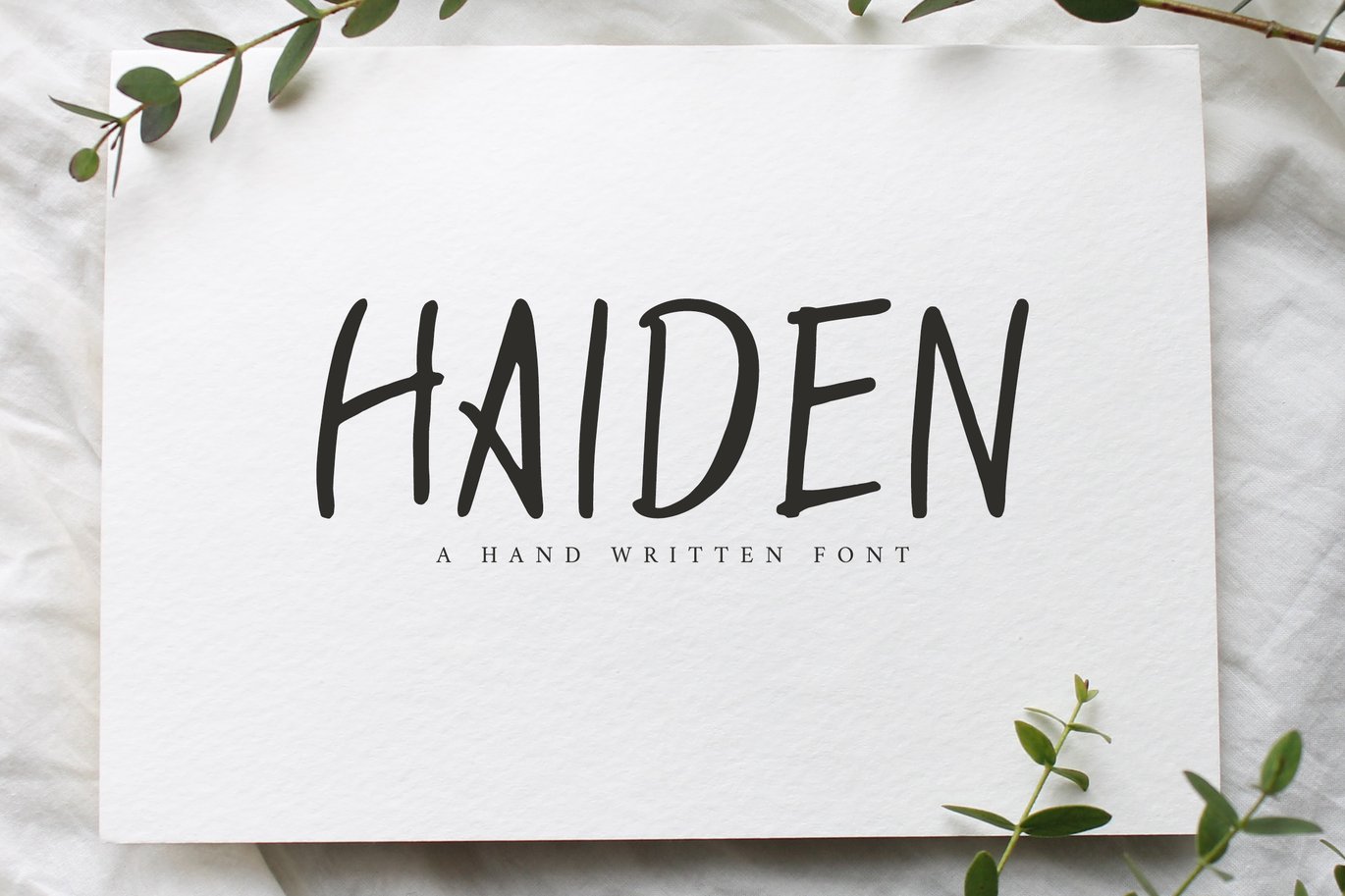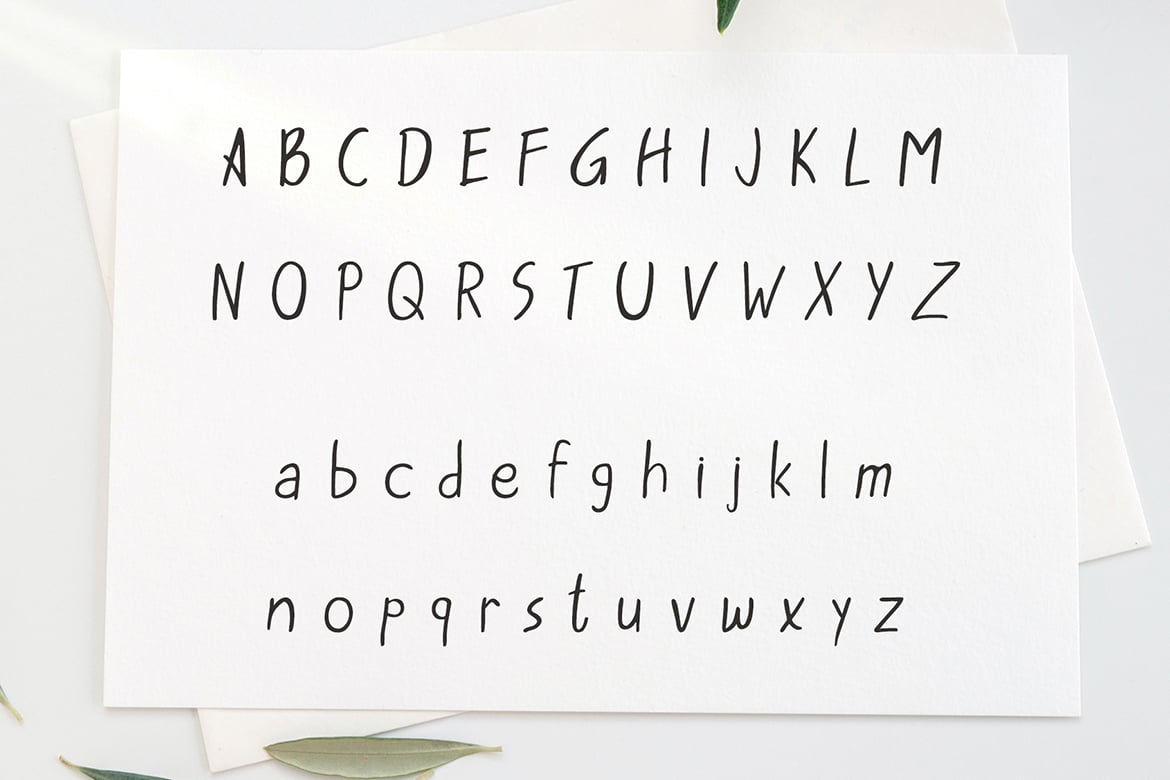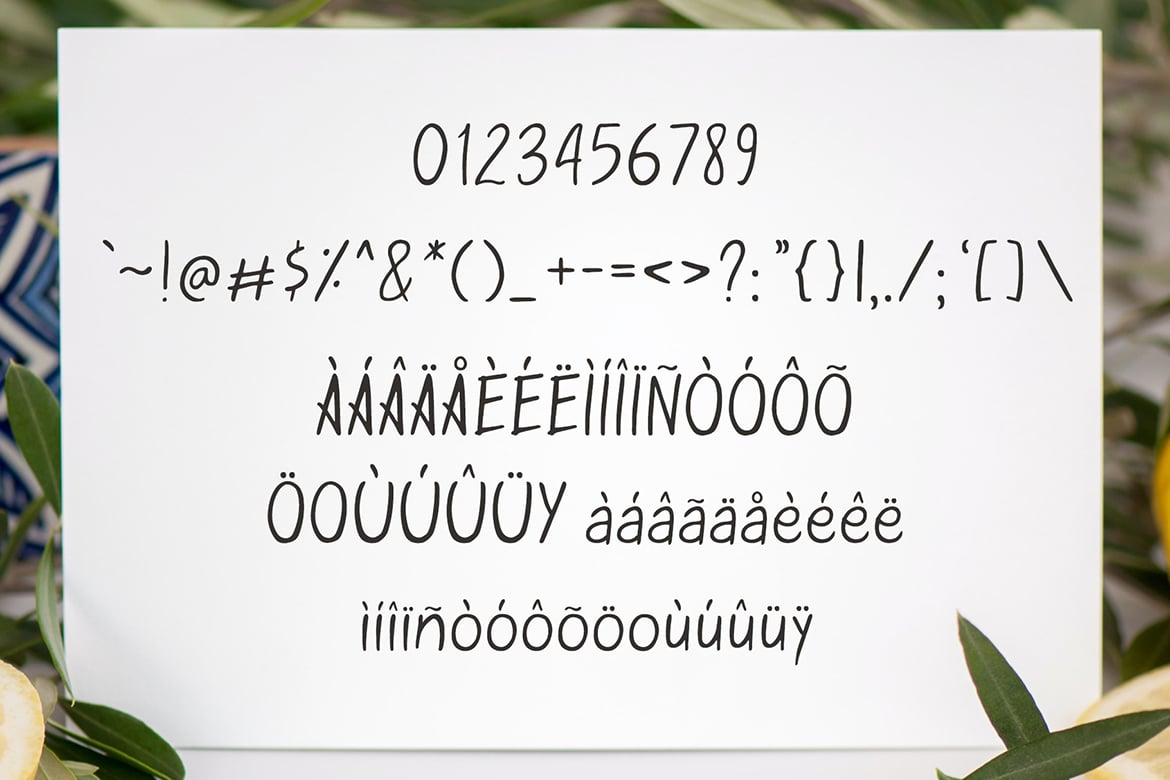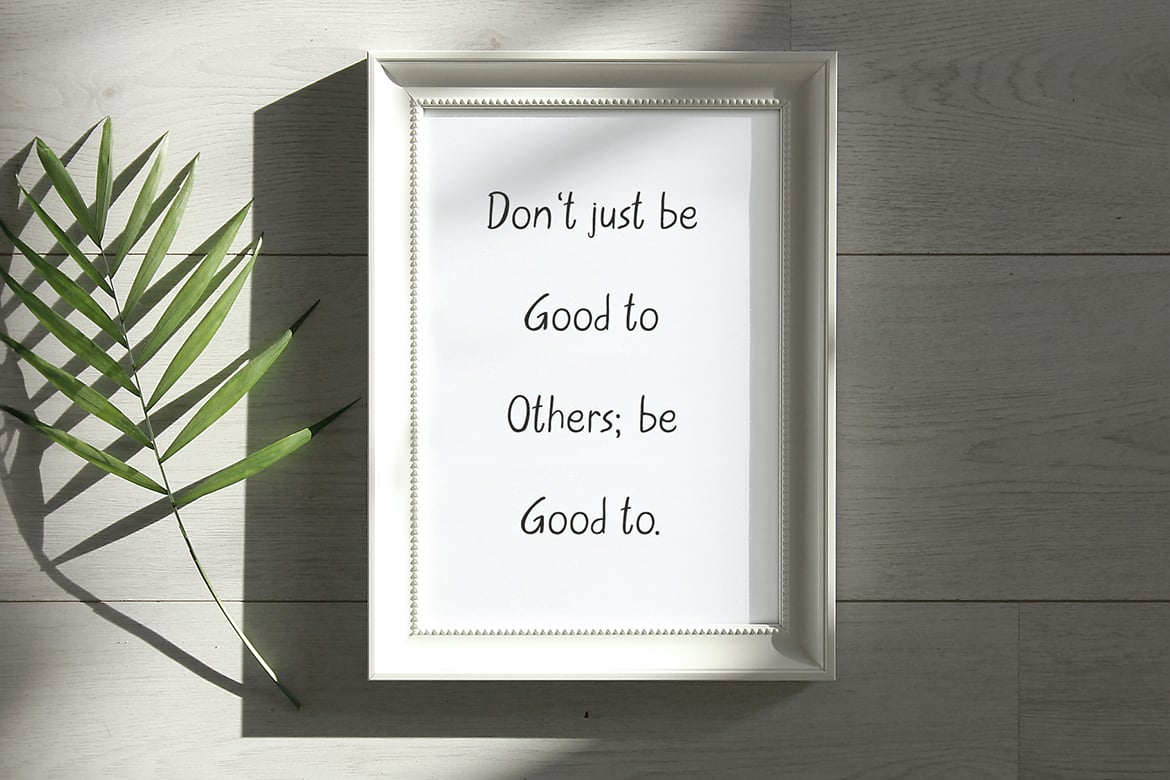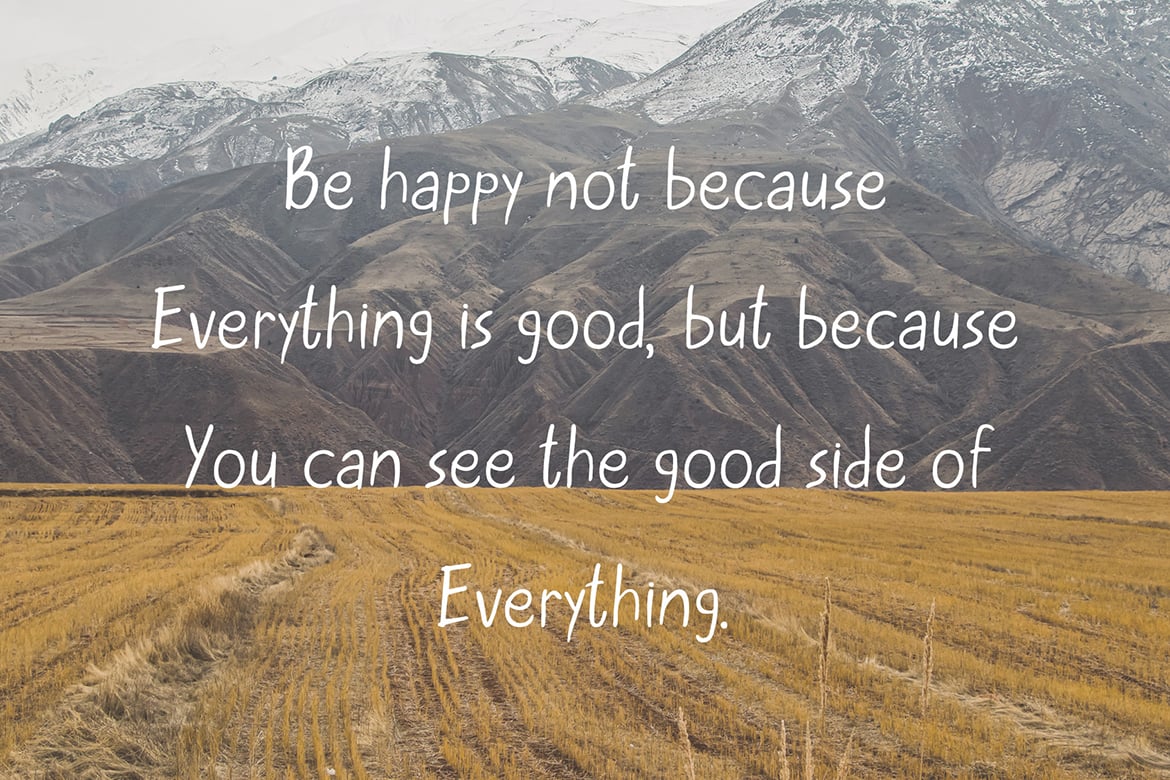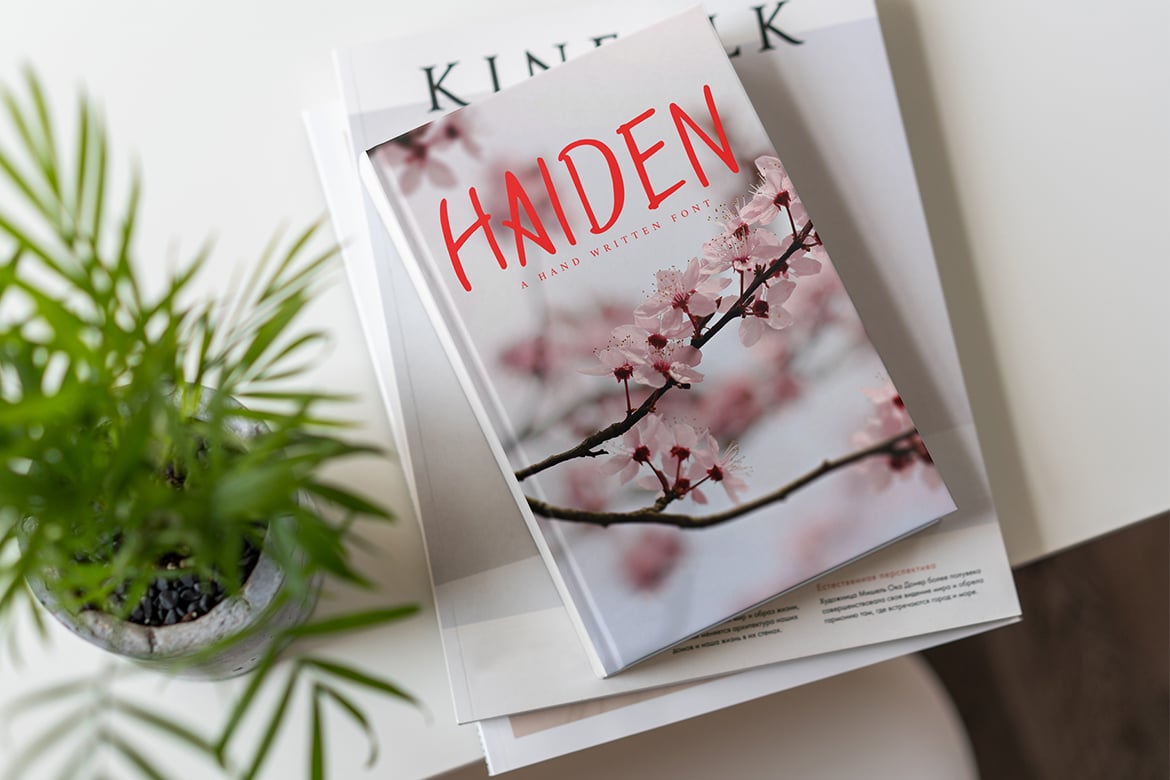
Haiden Brush Font
Haiden is a chunky, authentic and hand-drawn brush font which is ready to make a big impression on your next projects. It contains complete basic glyphs with multilingual support. Haiden will be perfect for packaging, presentations, logo, headlines, lettering, posters, branding, quotes, titles, magazines headings, web layouts, advertising, invitations, packaging design, books, and nearly any creative design.
Haiden Font Features:
- Uppercase Letters
- Lowercase Letters
- Non English Characters ( Latin Supplement + Latin Extended A)
- ABCDEFGHIJKLMNOPQRSTUVWXYZ
- !”#$%&'()*+,-./:;<=>?@[]^_`{|}~€¥
- ÀÁÂÃÄÅÈÉÊËÌÍÎÏÑÒÓÔÕÖÙÚÛÜàá
- âãäåèéêëìíîïñòóôõöùúûüÿỲ